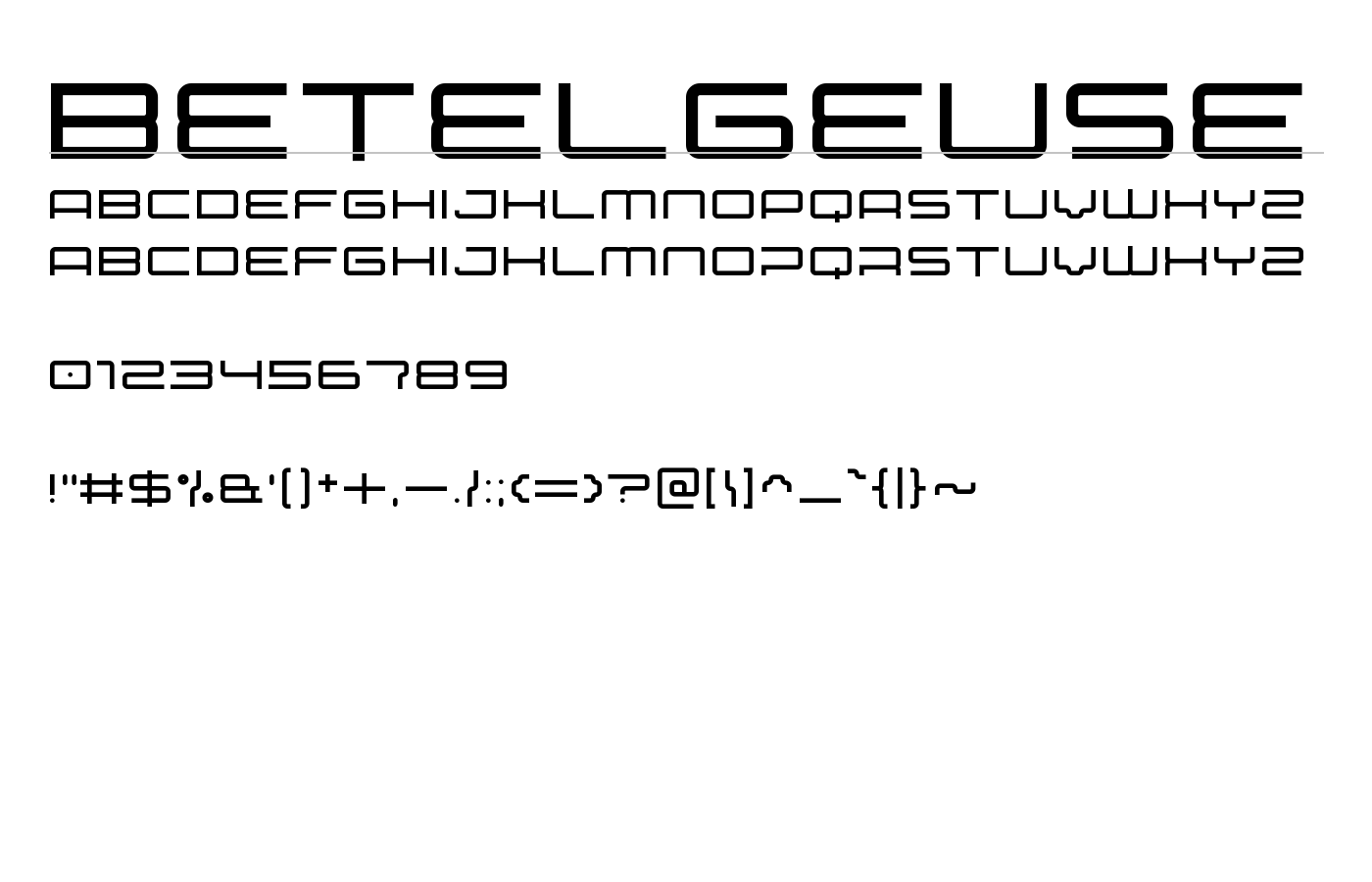
Betelgeuse is a futuristic sans serif font characterized by its clean, geometric shapes and uniform stroke weight, giving it a modern and technical feel. With its wide letter spacing and unique, squared forms, it works well for technology, science fiction, and digital branding projects, making headlines or logos stand out with a sleek, cutting-edge aesthetic. Its clear and consistent design also lends itself to use in editorial layouts and user interfaces that need a contemporary edge.
Betelgeuse Font
About Betelgeuse Font